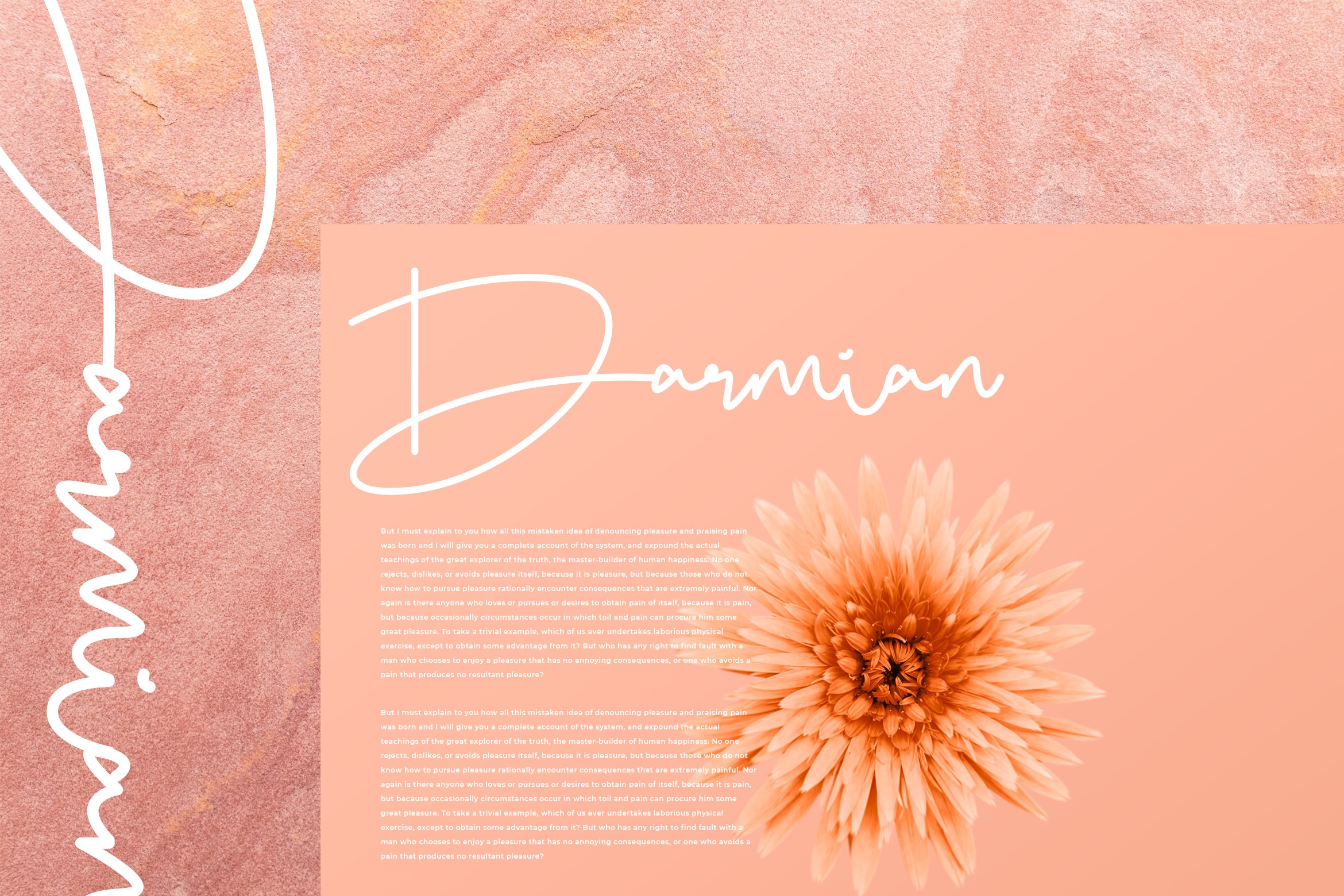
Bellogia Font
Bellogia Handwritten Font
It’s a new modern monoline script typeface designed to add a beautiful and modern touch to your designs. It can be used as an addition to your designs, crafts, branding, products, social media, t-shirts, print designs, and others.